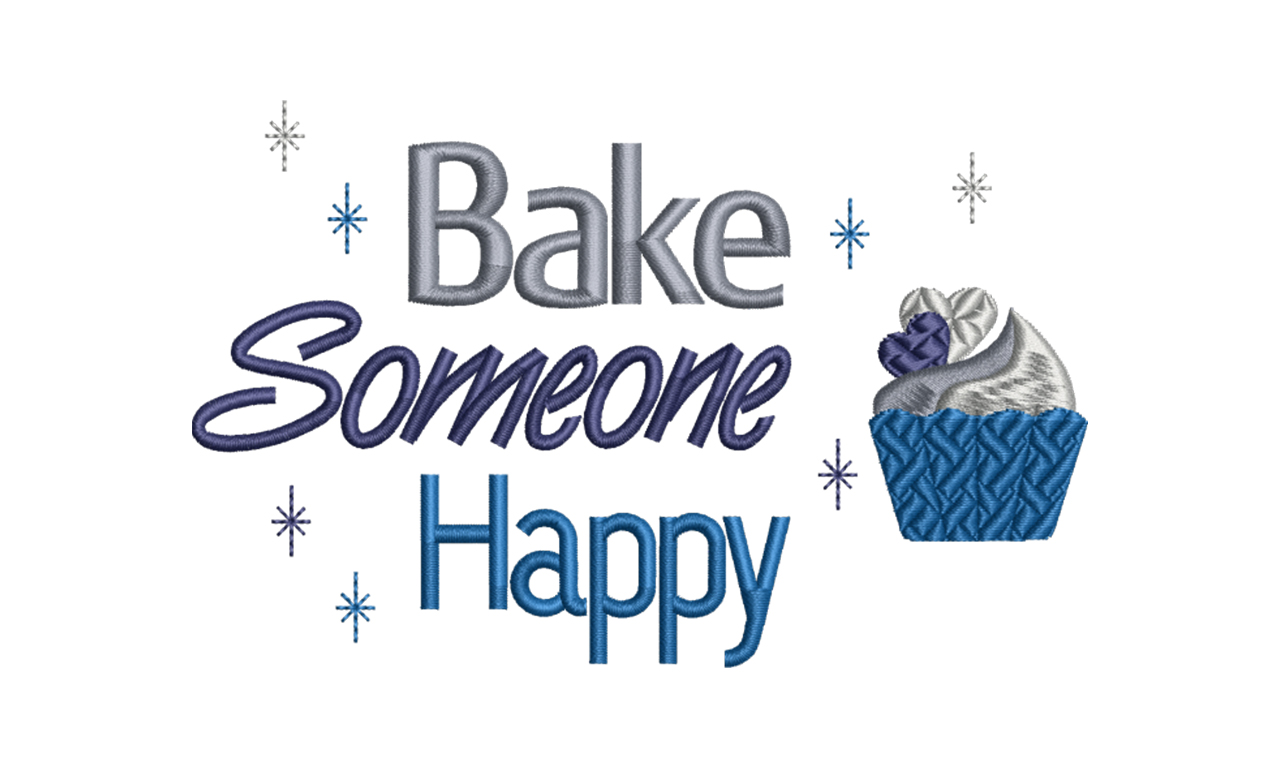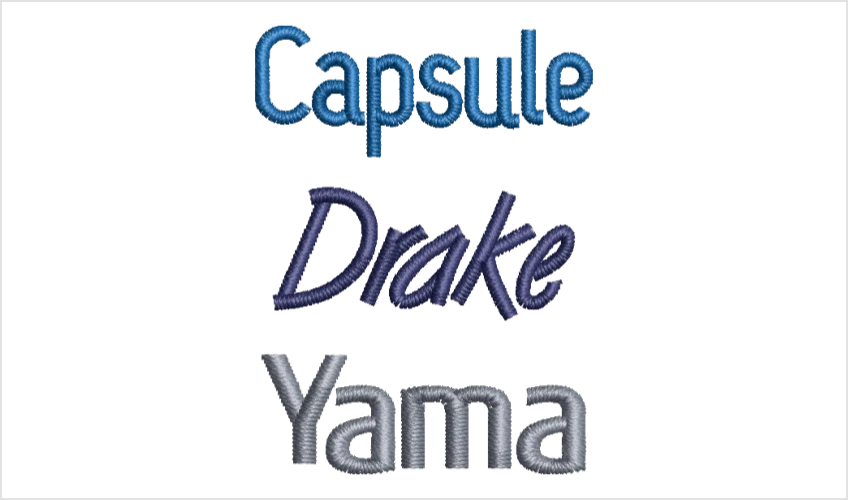
Font Pack #9 – Tall & Thin
So often we need a slightly taller font but we want to keep it thin. The Tall & Thin font collection provides three fonts that provide just that. It’s a great group of fonts for wall art and especially for monograms.
Capsule
This is a sleek sans-serif font. It’s easy to read when using all caps or upper and lower case mixed. Great for wall art and sayings and sign art.
Drake
The name says it all! Great to give that “vintage” look. Perfect to use for simple signs, wall art and single name projects. Try using the first letter larger for a different look. This font combines well with mixed font types.
Yama
This is one of the most popular fonts in both embroidery and print. It’s a beautiful block font with a wide size range